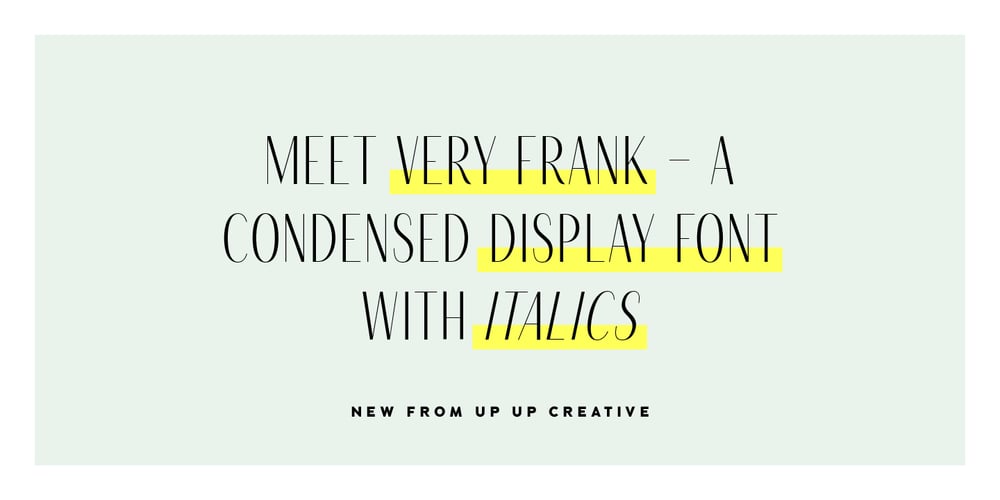
Very Frank Font Family was designed by Julie Green and published by Up Up Creative. Very Frank contains 2 styles and family package options. Meet Very Frank, a font that won’t feed you any lines or tell you any lies. Straight and tall and lacking in all but the subtlest softening details (look at the leg on that uppercase K, though…).Very Frank is a condensed sans serif display font (in regular and italic) with tall, straightforward lines and subtle curves to soften things up. It includes a ton of standard and discretionary ligatures and two stylistic sets to spice things up and add some fun. It’s perfect for headlines, editorial design, monograms, branding, logos, poster design, and more.Very Frank includes approximately 540 glyphs and more than 75 standard and discretionary ligatures. Additional OpenType features include character variants, stylistic sets, and multilingual support (including multiple currency symbols).The OpenType features can be very easily accessed by using OpenType-savvy programs such as Adobe Illustrator and Adobe InDesign. (To access these awesome features in Microsoft Word, you’ll need to get comfortable with the advanced tab of Word’s font menu.)